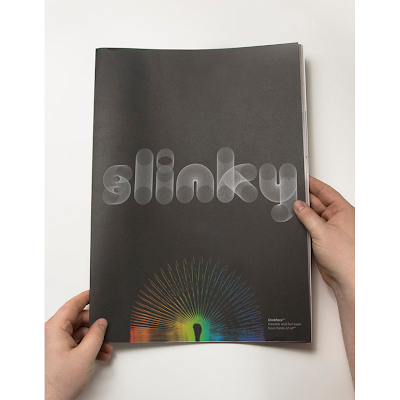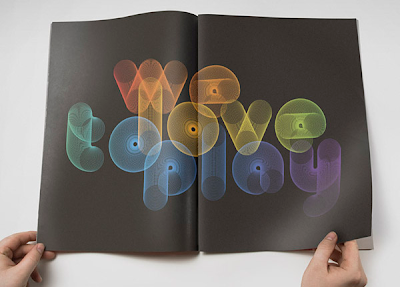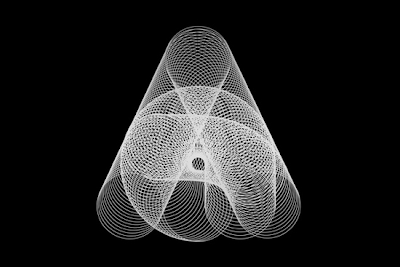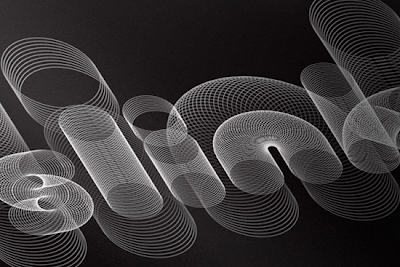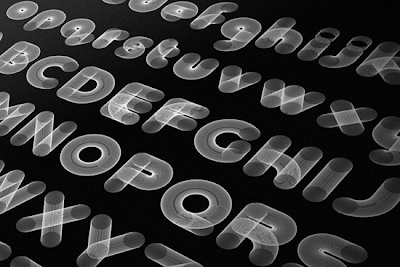
TypeFace Tuesday :: Slinkytype
This is pretty much the raddest font ever created. Somehow I doubt this kind of slinky will ever get twisted up, broken, kinked, or otherwise trashed.
Slinkytype by Paul Hollingsworth